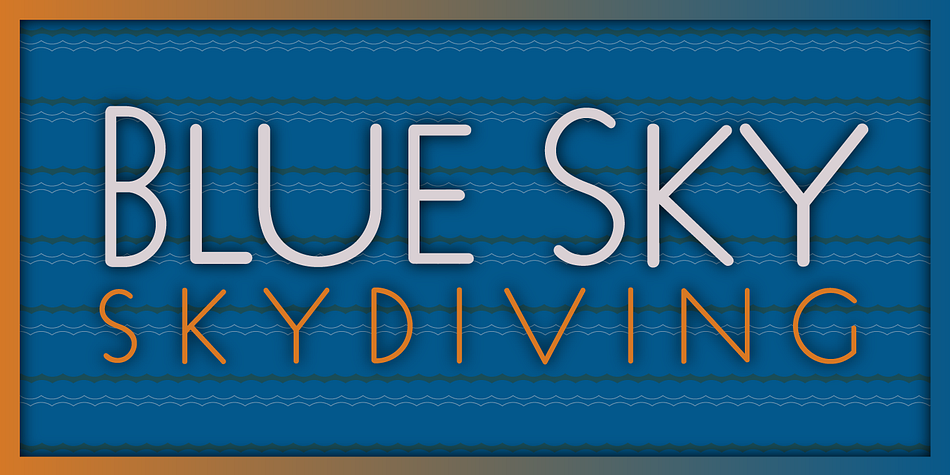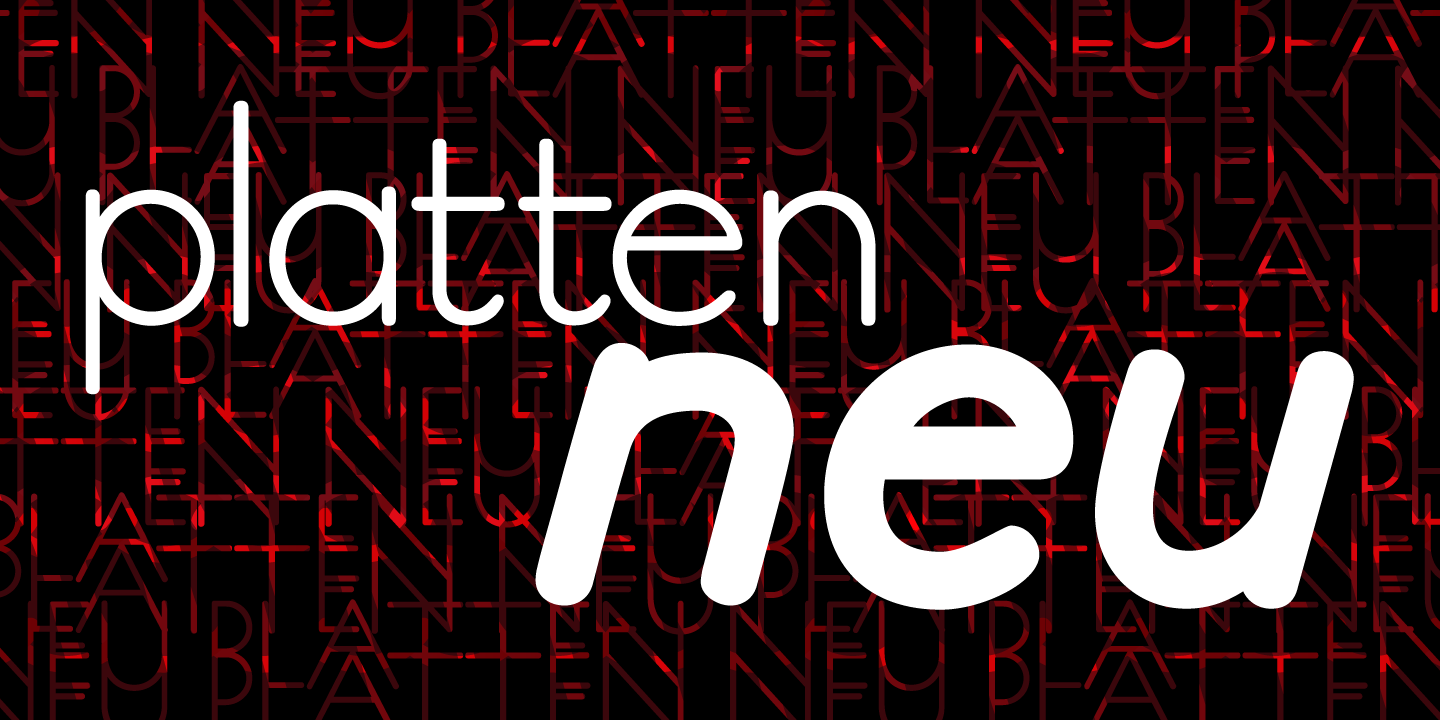
P22 Platten Neu
P22 Platten Neu is a sans serif and display sans font family. This typeface has fifteen styles and was published by International House of Fonts.
Platten is based on lettering found in German fountain pen practice books from the 1920s (you may have seen the similar Speedball books in the US). This round tip pen lettering is comparable to the basic forms used in grammar school teaching alphabets, but with a few original characteristics. The Italic version has even more of these unusual features.
Geometric and simple yet casual and timeless. Perfect for many uses.